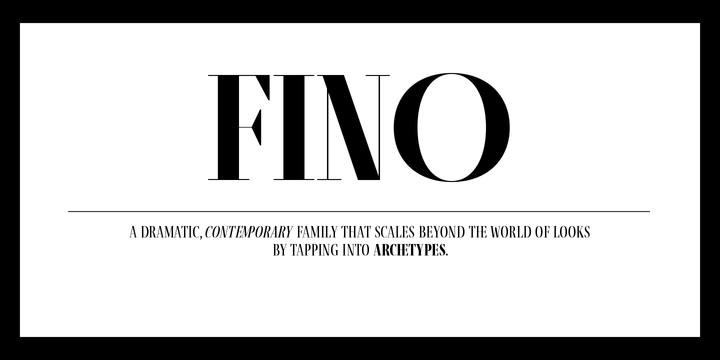
Fino Font Family
Tall, stately, and refined, with a showy contrast between thick and thin, a certain kind of titling Didone has become synonymous with fashion. Ermin Međedović’s latest type system amplifies the most theatrical aspects of this genre while bringing an uncommon flexibility of style and variation to any type palette — particularly those required for editorial design.